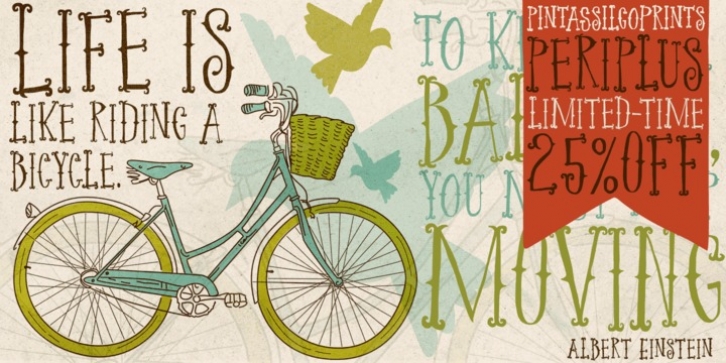
I got rhythm, I got music, I got my swirls, who could ask for anything more?
Periplus is quite an eccentric type, full of twists and nice oddities here and there.
It is an all-caps font with 2 variations for each letter and number, stored at upper- and lower-case slots.
For added amusement, every letter got not 1 or 2, but 4 swash variations. One can be reached through the OpenType swash feature: just select the letter and hit the swash button. The other ones you will access through a glyphs palette. All of them are neatly organized with the ‘access all alternates’ feature.
The font is yet equipped with some stylistic alternates and ornaments.